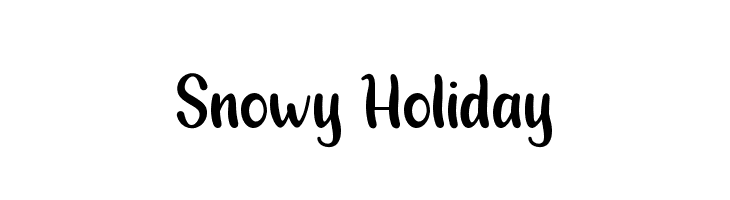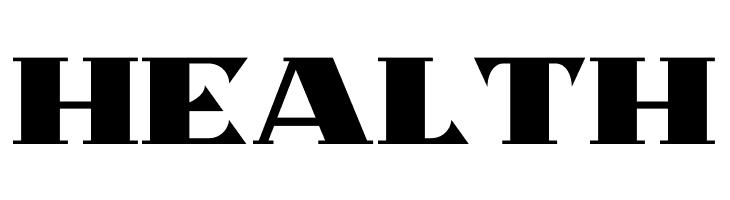
A geometric, art deco-inspired font with bold lines and angular curves.
A fluid and elegant handwritten script with dynamic strokes.
A playful, hollow, and rounded font with a whimsical style.
A bold, decorative font with sharp, spiky elements and dynamic design.
A flowing, cursive font with elegant, sweeping strokes and a dynamic appearance.
A bold, classic serif font with elegant curves and strong presence.
A bold, geometric font with strong visual impact.
An elegant, flowing script font with a classic calligraphic style.
A bold, industrial font with a unique horizontal striped pattern.
A dynamic and expressive handwritten font with fluid, interconnected strokes.
设计师偏爱 GrenadierNF, Naturally, Funny and Cute-Hollow-Inverse, GDS Infinity and Raxeyti Italic,因为其造型干净、适用范围广—— 从品牌识别到落地页、海报都能胜任。